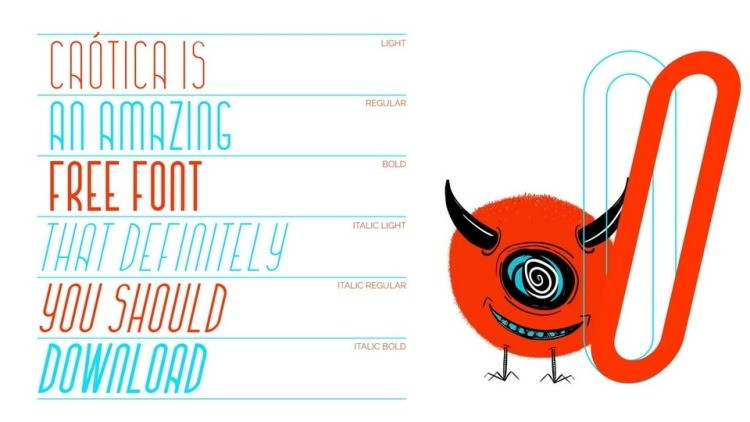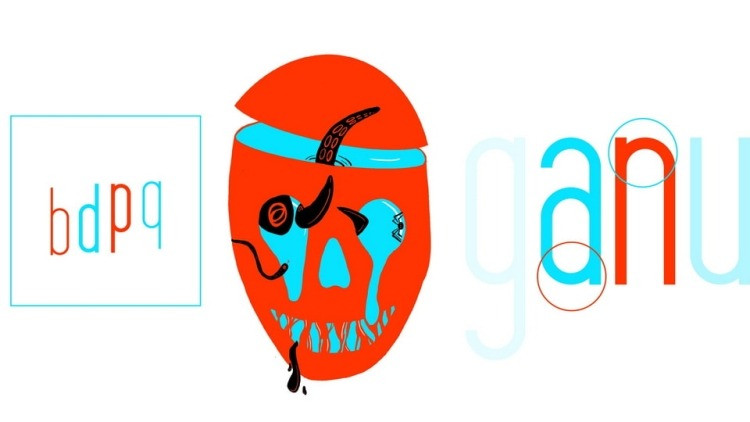
Caotica Font
Caotica Display Font is a condensed display typeface with a perfect combination of rounded corners and square contours. The font is a great choice for magazine, editorial, publishing and display use.